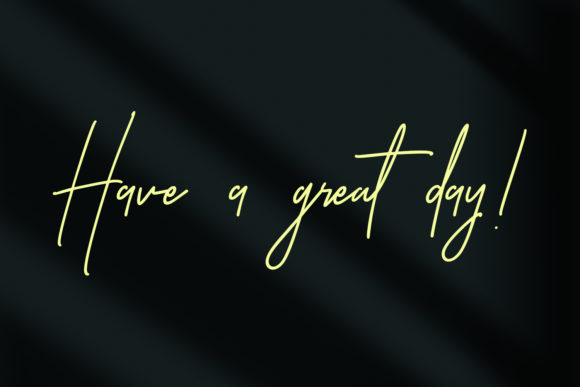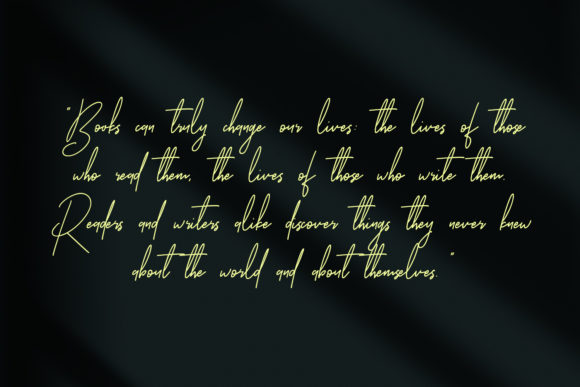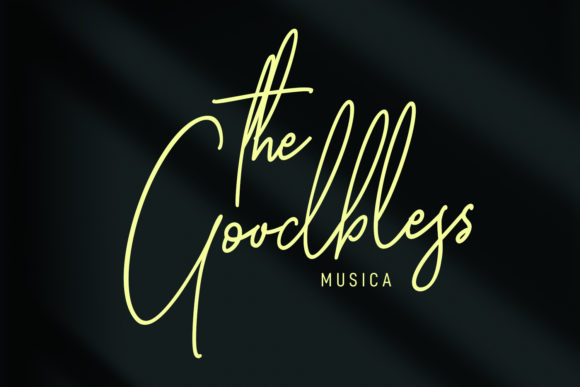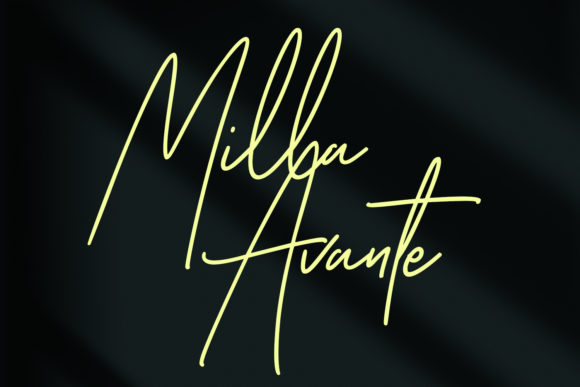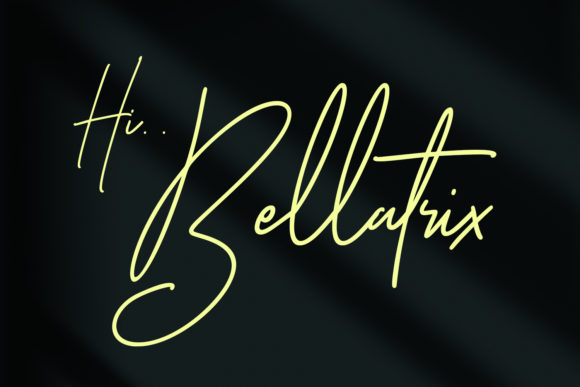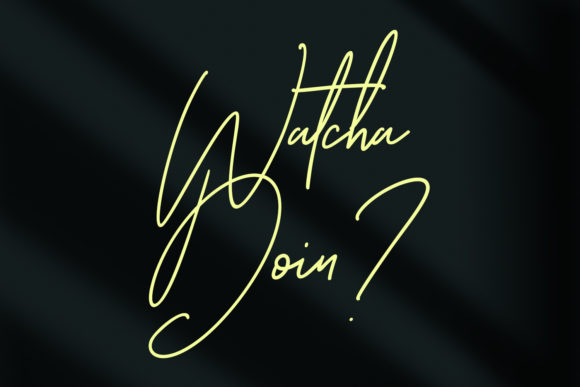
Goofers Script Font
About Goofers Script Font
Goofers Script is a unique and fashionable script font. It looks luxurious and delicate on wedding invitations, thank you cards, quotes, greeting cards, logos, business cards and every other design which needs a customized touch.